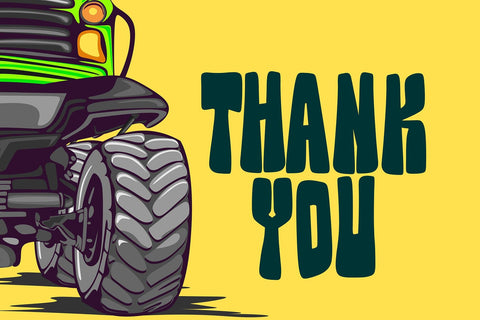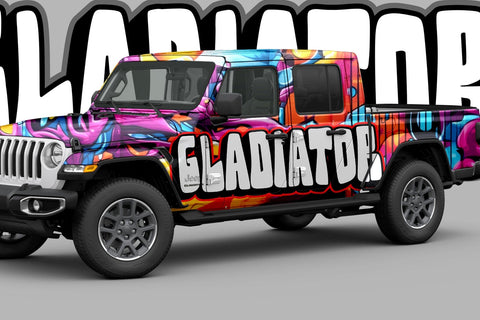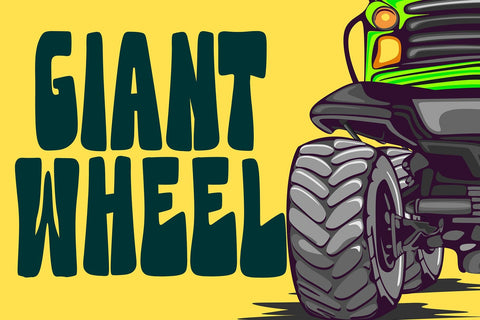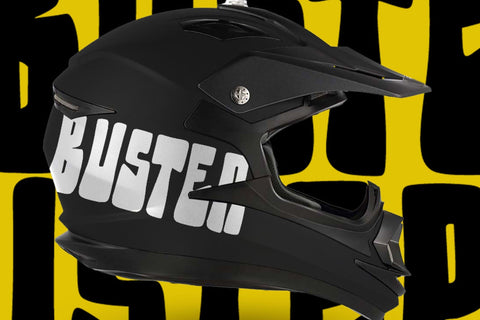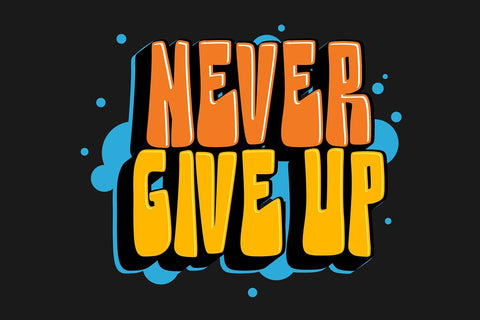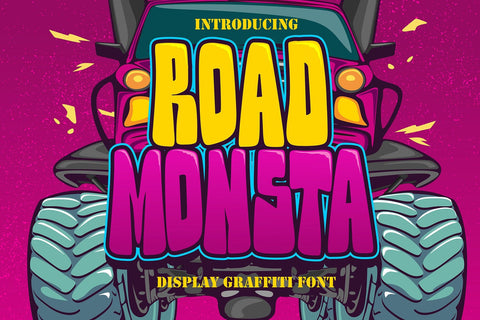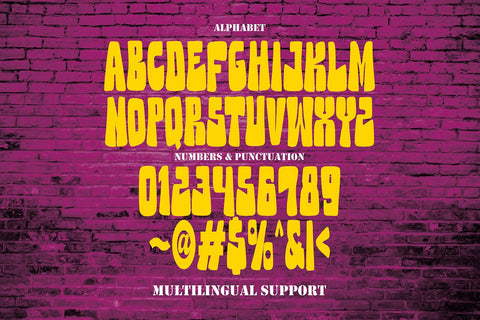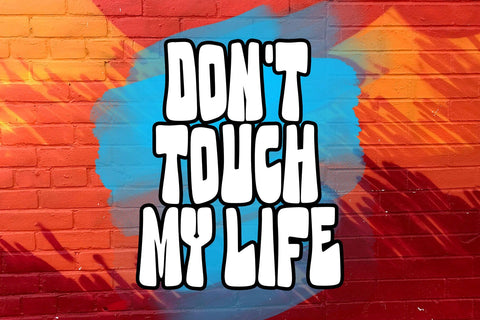
Road Monsta - Quirky Display Graffiti Font
"Road Monsta" is a basic graffiti font that's perfect for a variety of powerful design projects. With expressive letter characters and bold, striking lines, this font adds an urban and bold touch to your typography. Whether used for posters, logos, or designs that require a strong graffiti aesthetic, "Road Monsta" ensures that your message appears bold and full of energy.